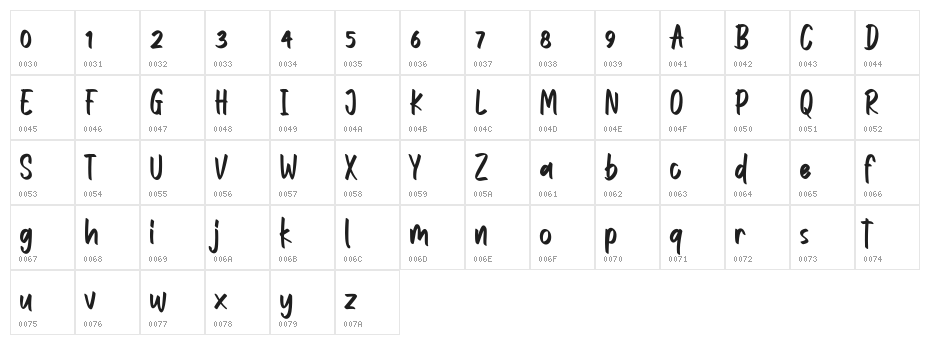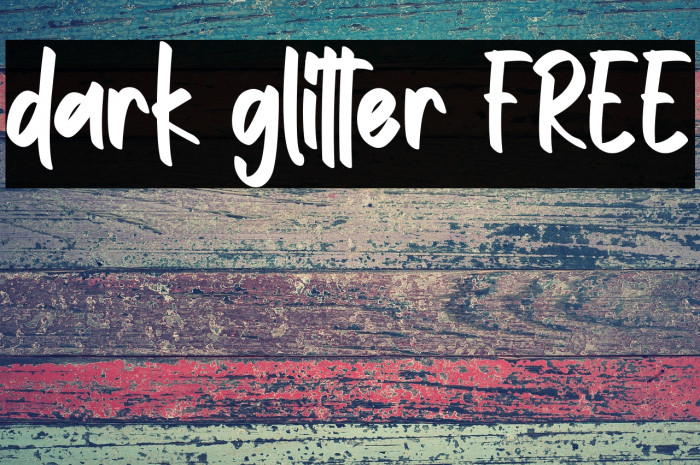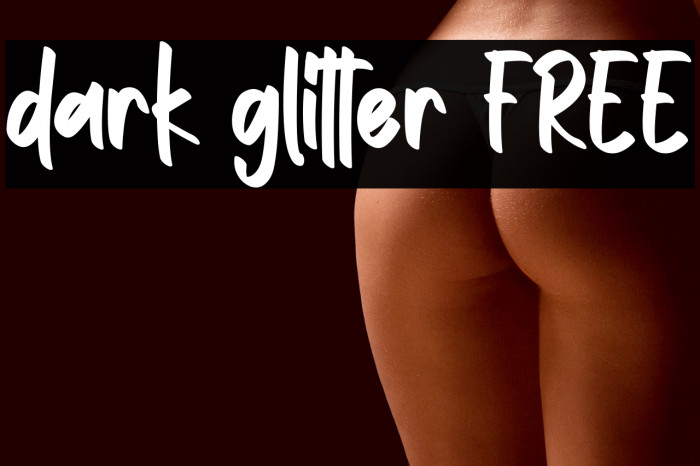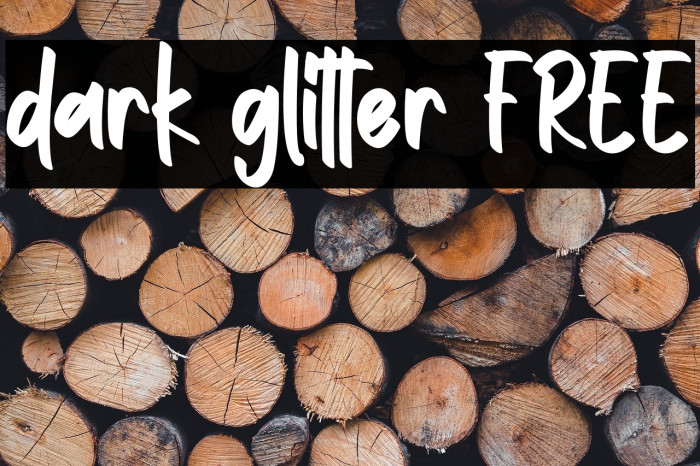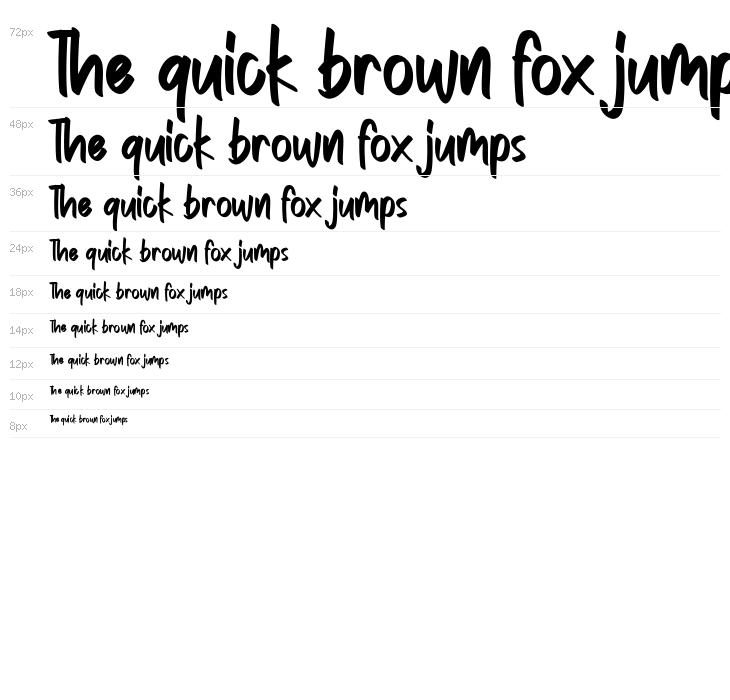
dark glitter FREE Font
dark glitter FREE Description
This font features a bold, handwritten style with a playful and casual appearance. The letters are slightly slanted, giving a dynamic and energetic feel. The strokes are thick and consistent, providing a strong visual impact. The uppercase and lowercase letters maintain a cohesive style, while the numbers and special characters blend seamlessly with the overall design. The font's informal and friendly vibe makes it suitable for creative and fun projects.